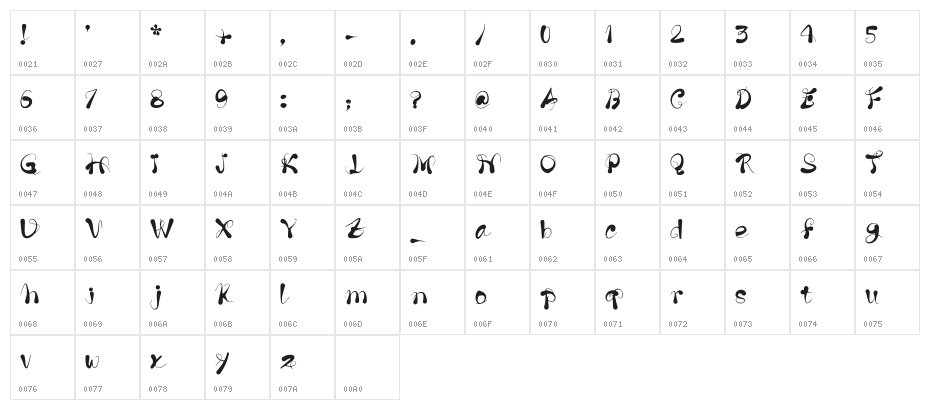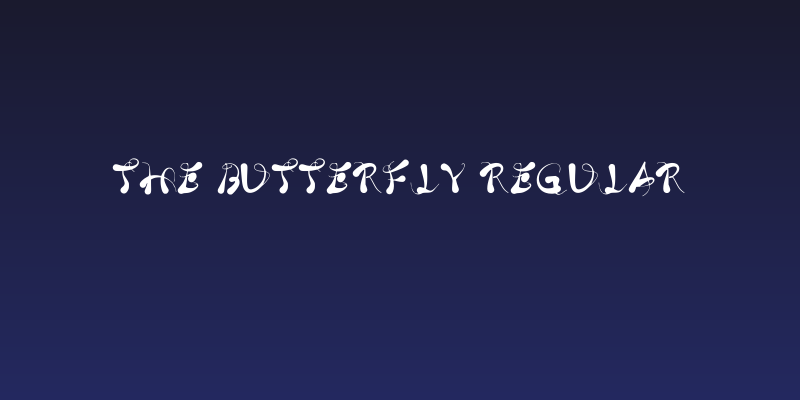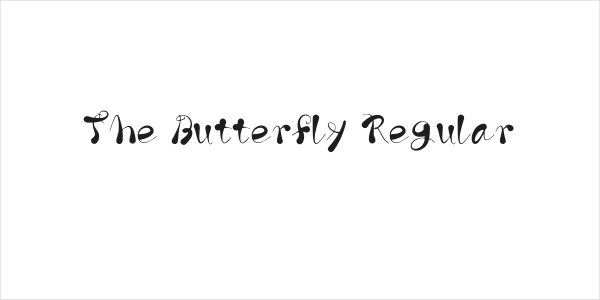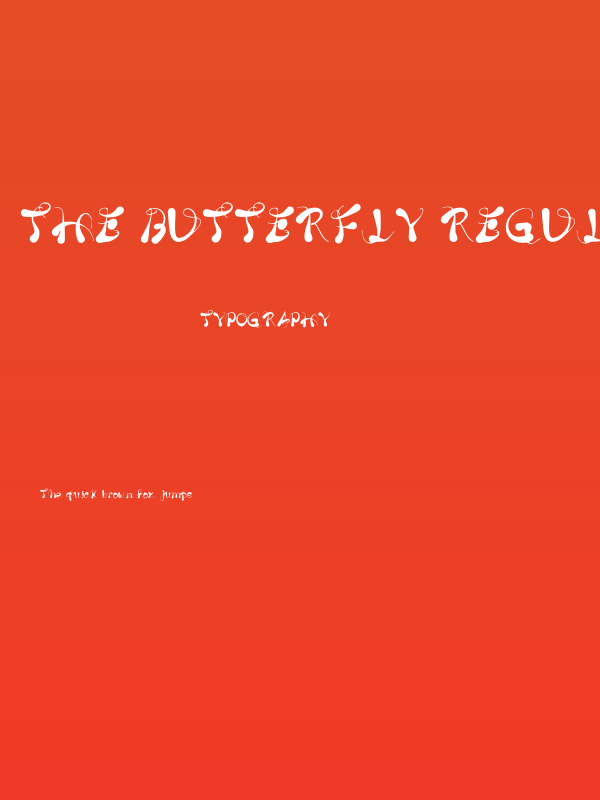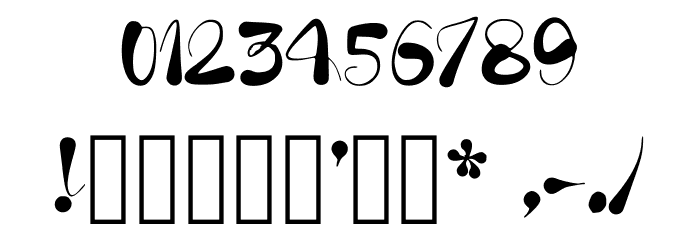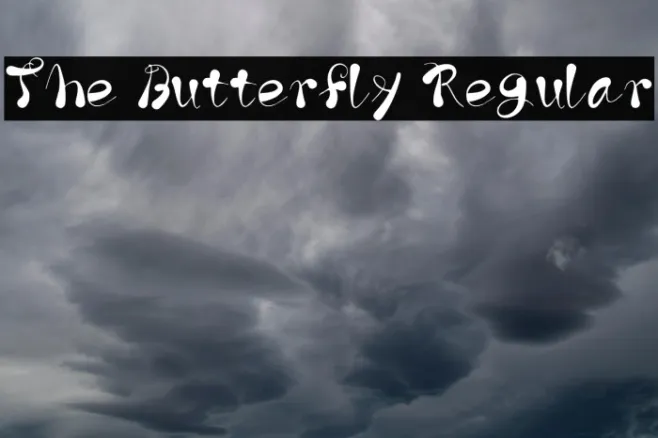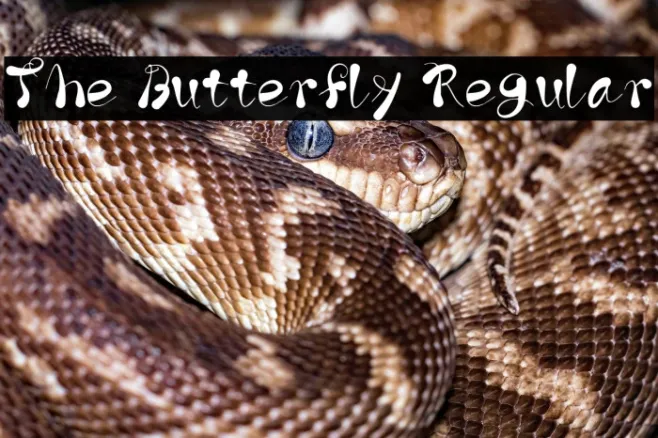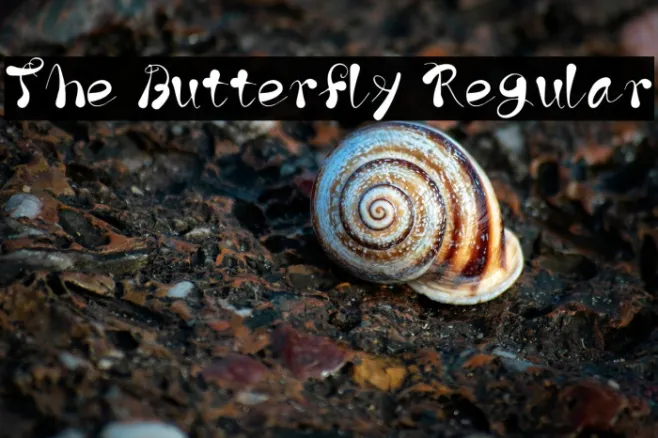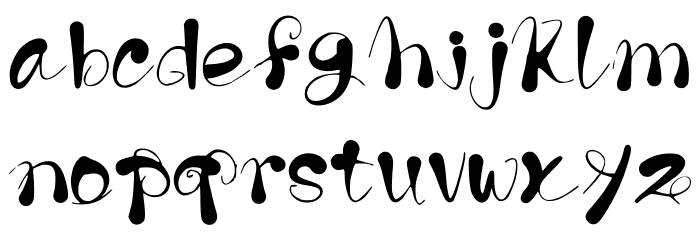
The Butterfly Regular Font
The Butterfly Regular Description
This font features a whimsical and decorative style, characterized by its flowing, cursive-like strokes and playful embellishments. The letters are interconnected with elegant swirls and loops, giving it a dynamic and lively appearance. The uppercase letters are bold and expressive, while the lowercase letters maintain a consistent flow with a slightly more delicate touch. Numbers and special characters follow the same ornate design, making the font suitable for creative and artistic projects. The overall design is reminiscent of calligraphy, with a modern twist that adds a unique flair to any text.
| Use Case | Logos, Invitations, Artistic Posters |
| Proposed Projects | Ideal for wedding invitations, greeting cards, artistic posters, and branding projects that require a touch of elegance and creativity. |